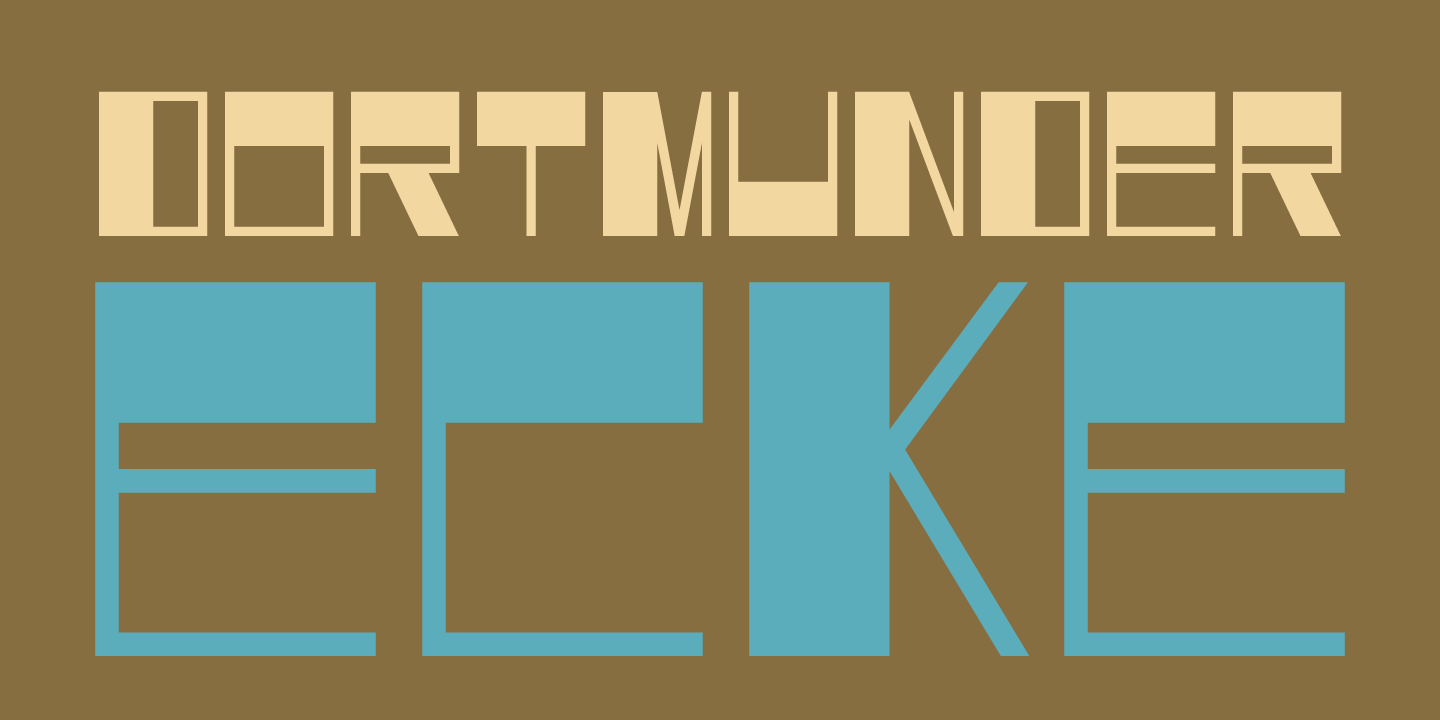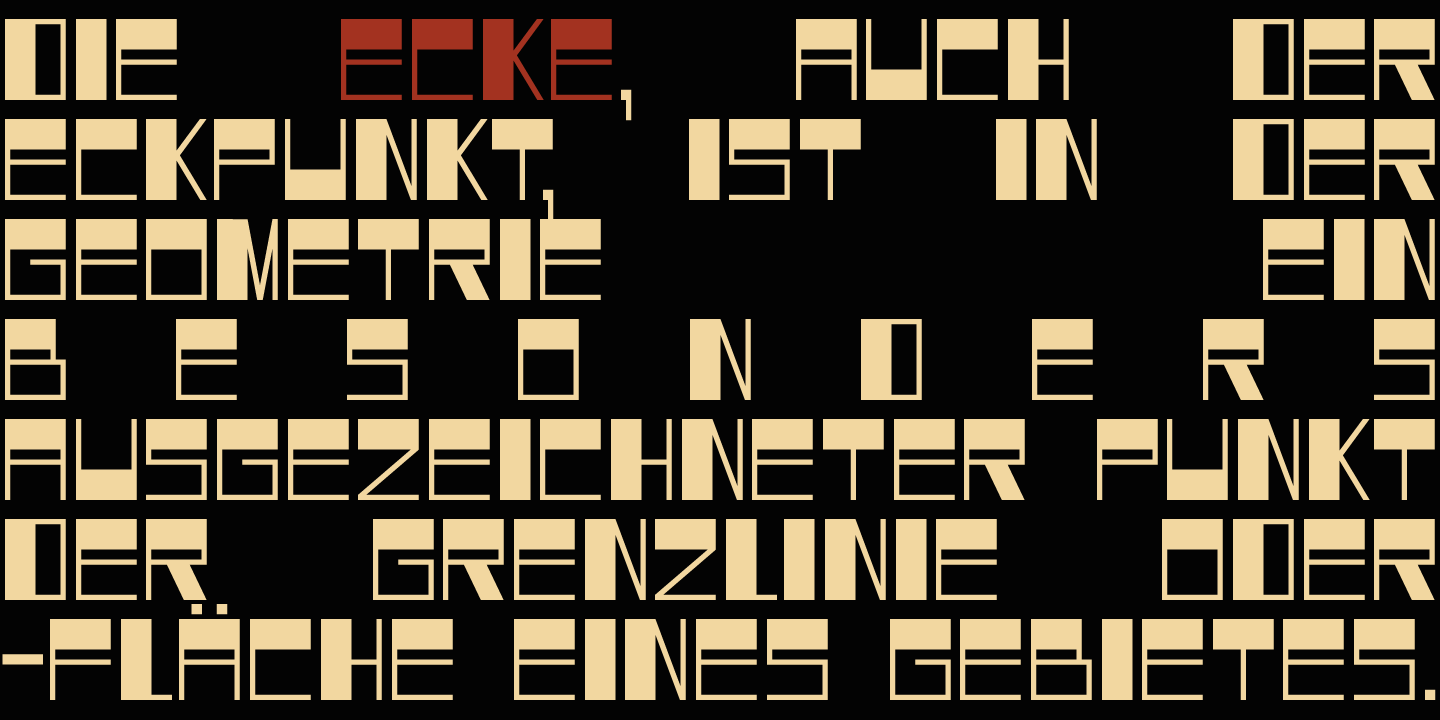
Dortmunder Ecke
Font Family by Hanoded
Dortmunder Ecke ("Dortmund Corner") is a clean, all caps font inspired by Cubism. It really has nothing to do with the city in Germany, but the name stuck and I kept it that way. Comes with a square amount of diacritics.